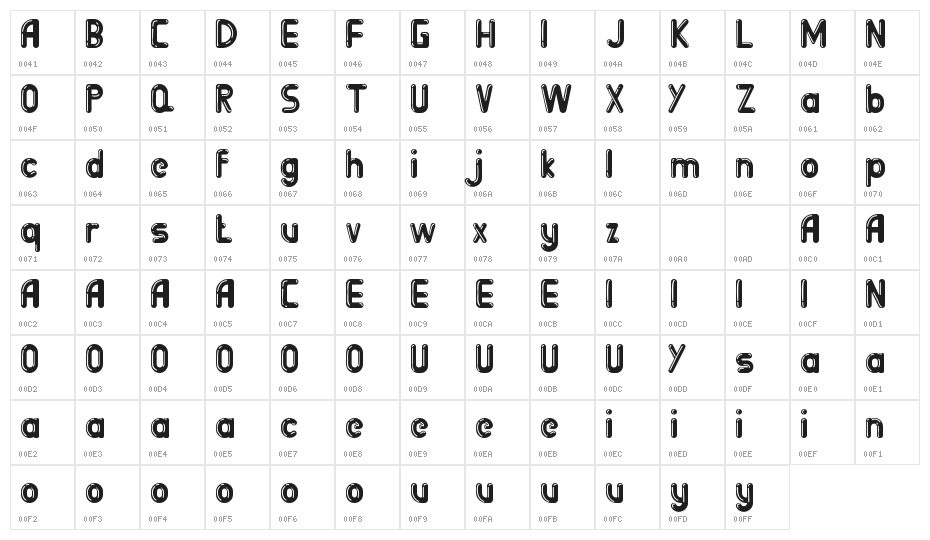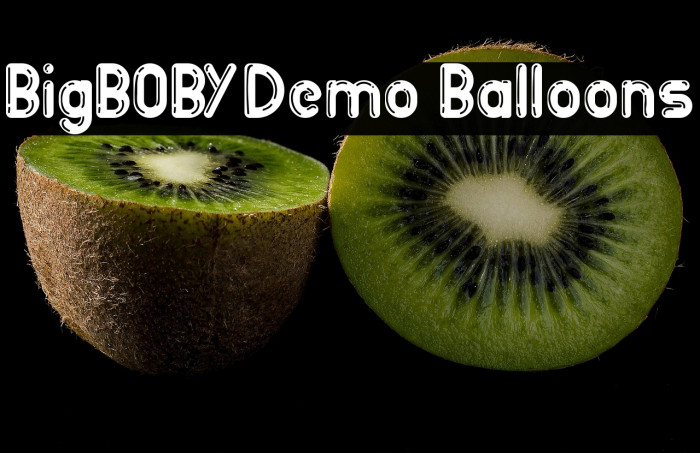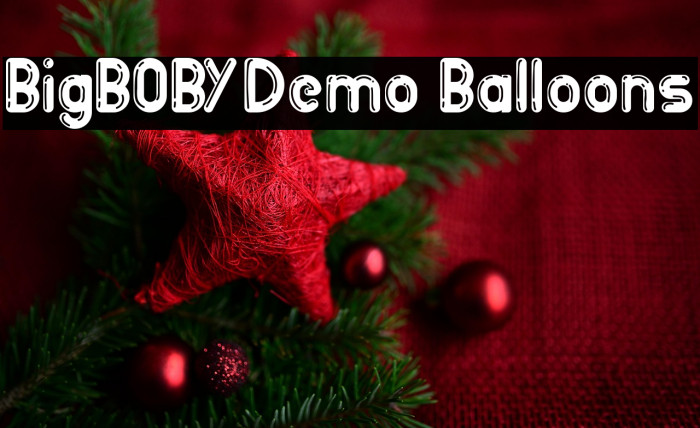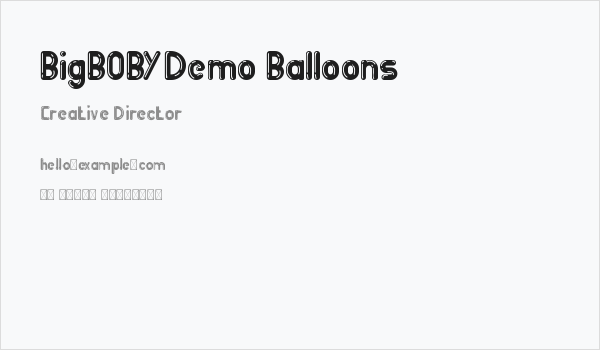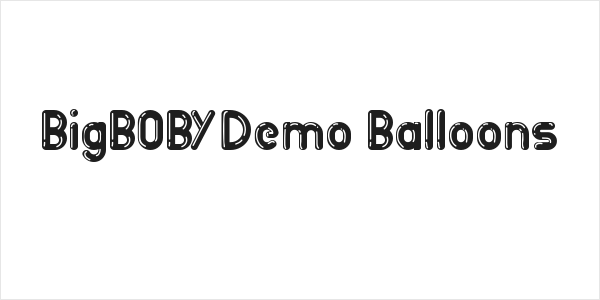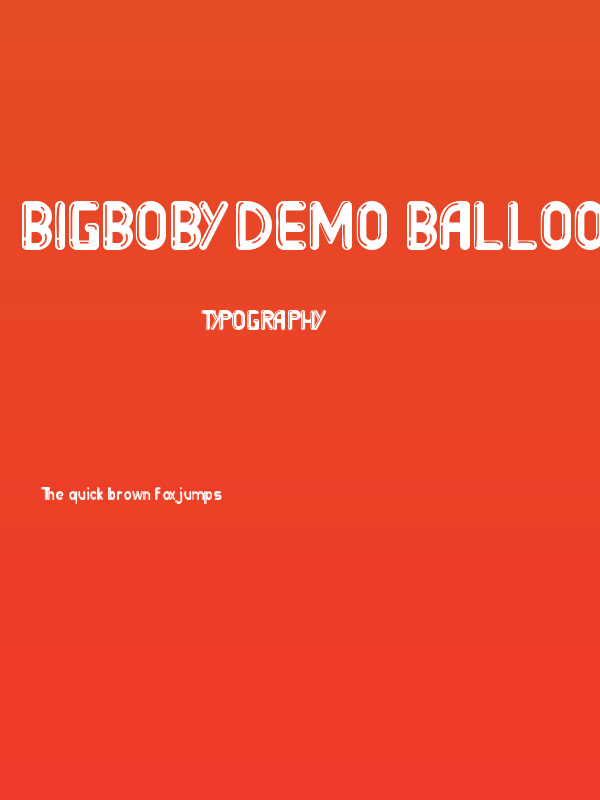
BigBOBY Demo Balloons Font
BigBOBY Demo Balloons Description
This playful and bold font features a balloon-like appearance with rounded edges and a three-dimensional effect. The letters are thick and have a soft, inflated look, reminiscent of party balloons. The style is consistent across uppercase and lowercase letters, as well as numbers and special characters. The font's design is eye-catching, with a whimsical and fun aesthetic that adds a touch of joy and celebration to any text. Its unique style makes it stand out, making it suitable for creative and informal projects.
Proposed ProjectsIdeal for children's party invitations, playful branding, festive posters, and any project that requires a fun and lively typeface.